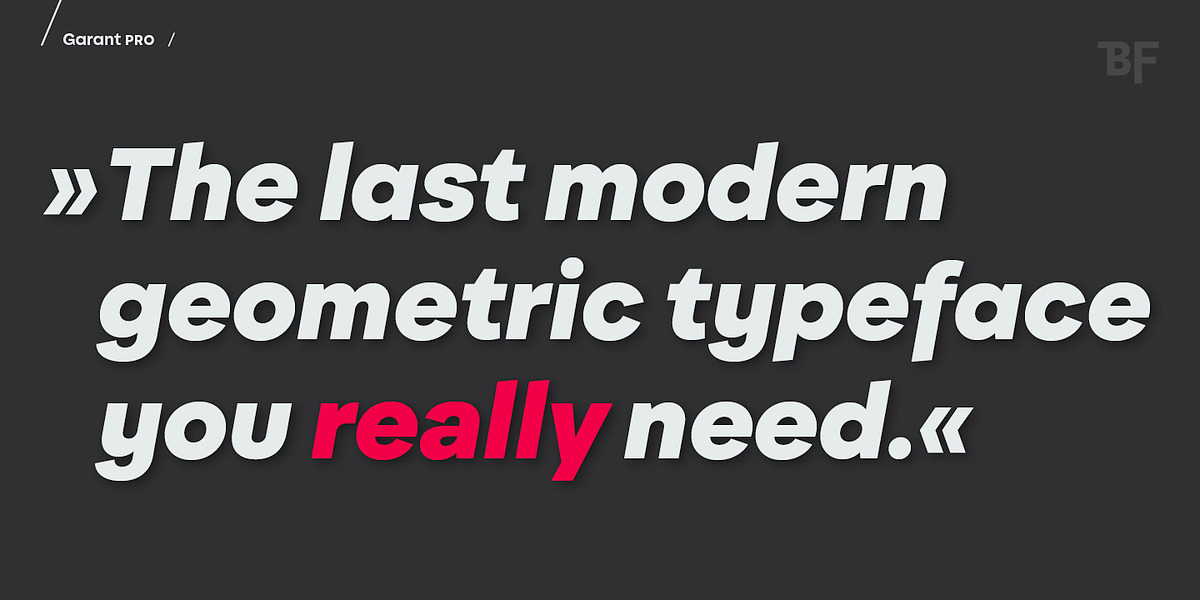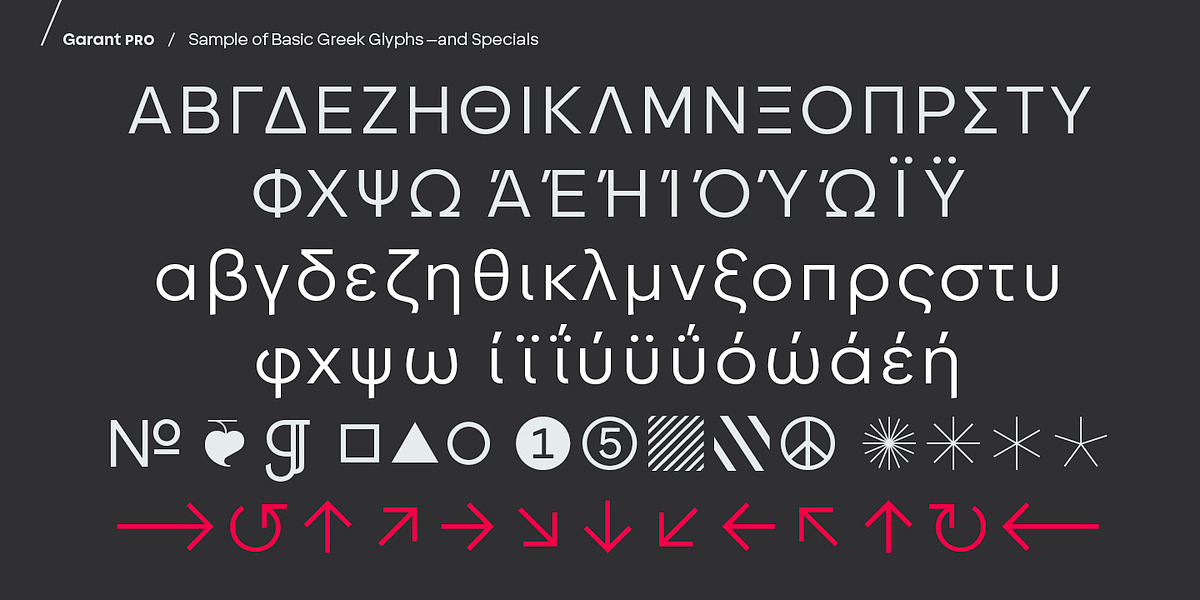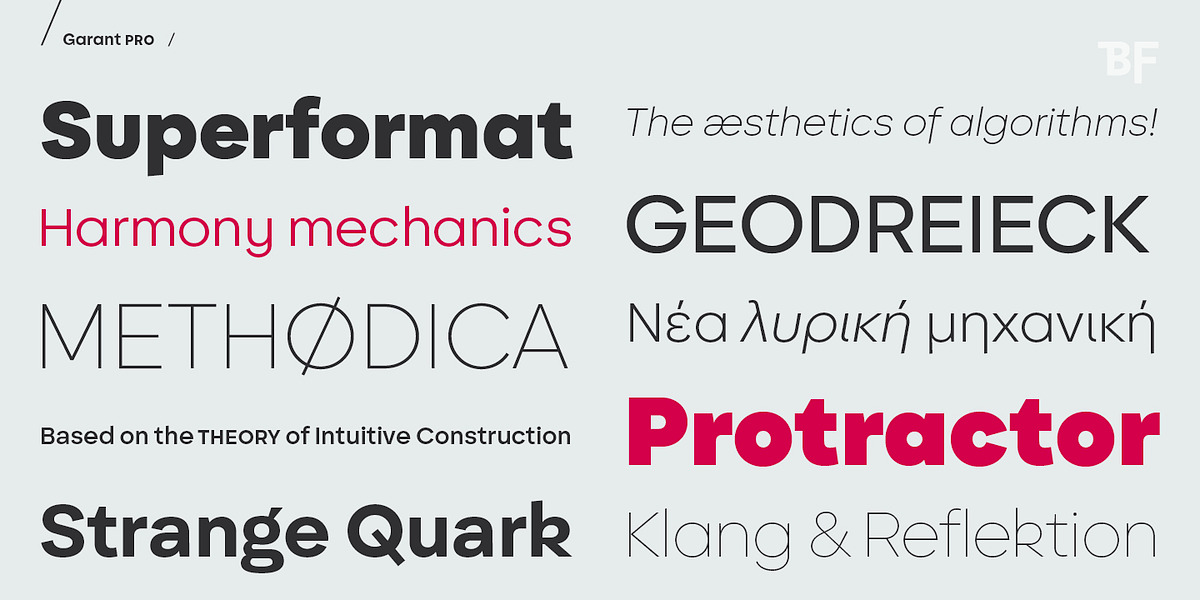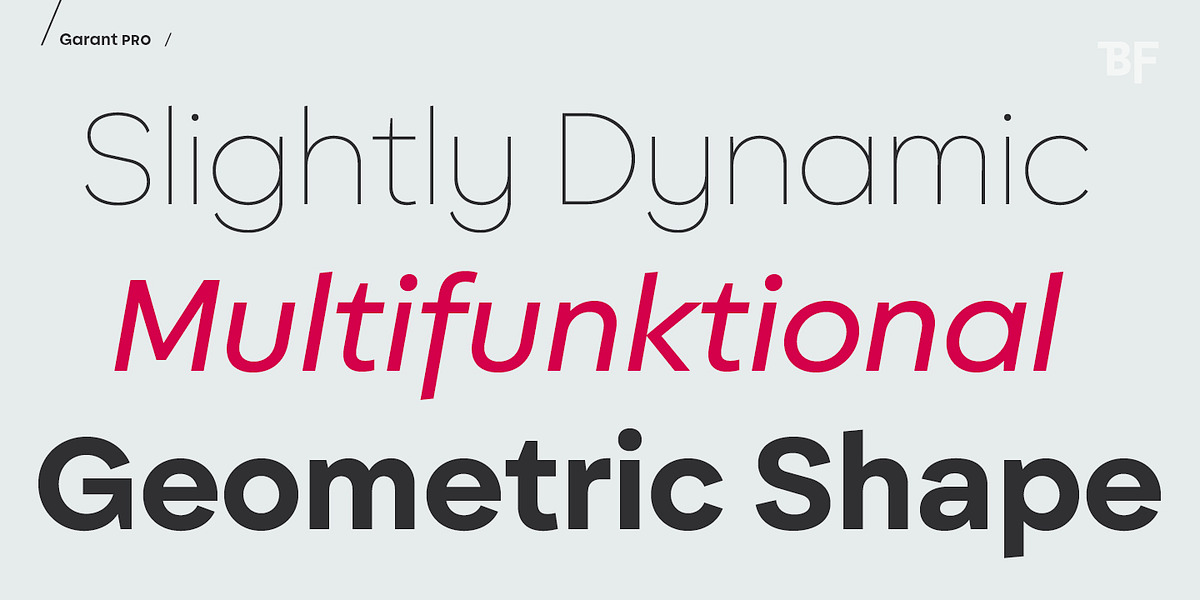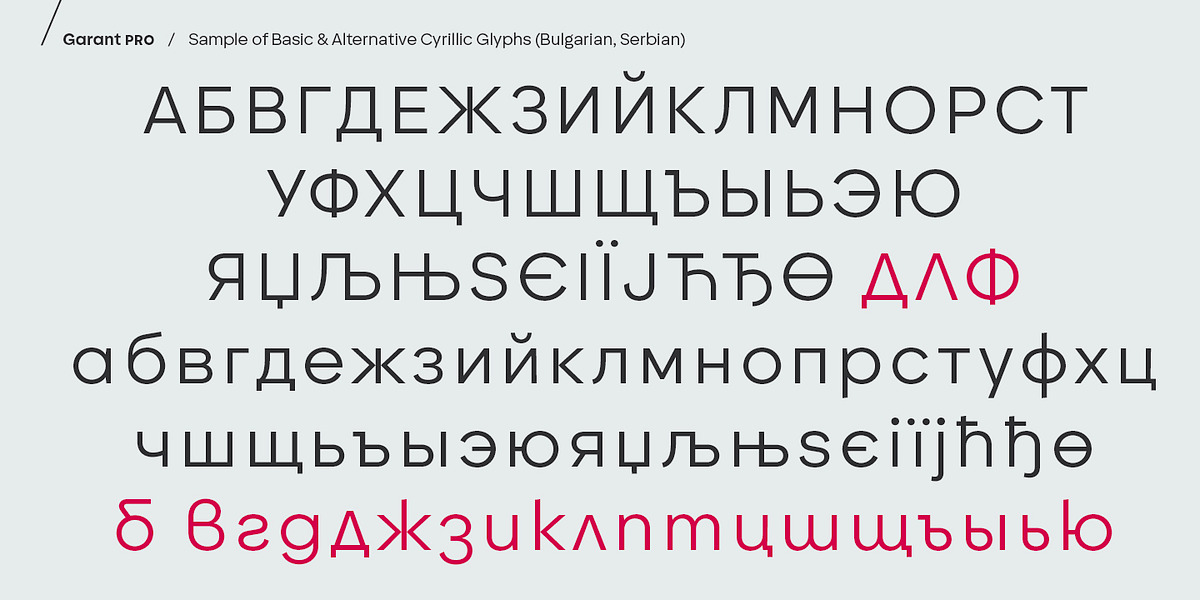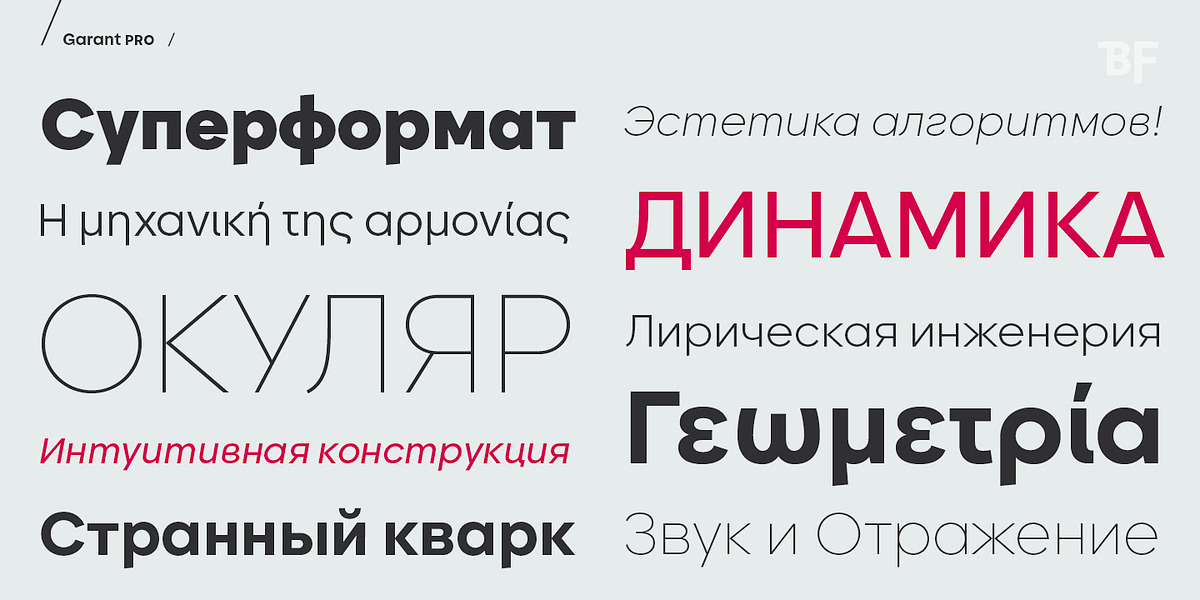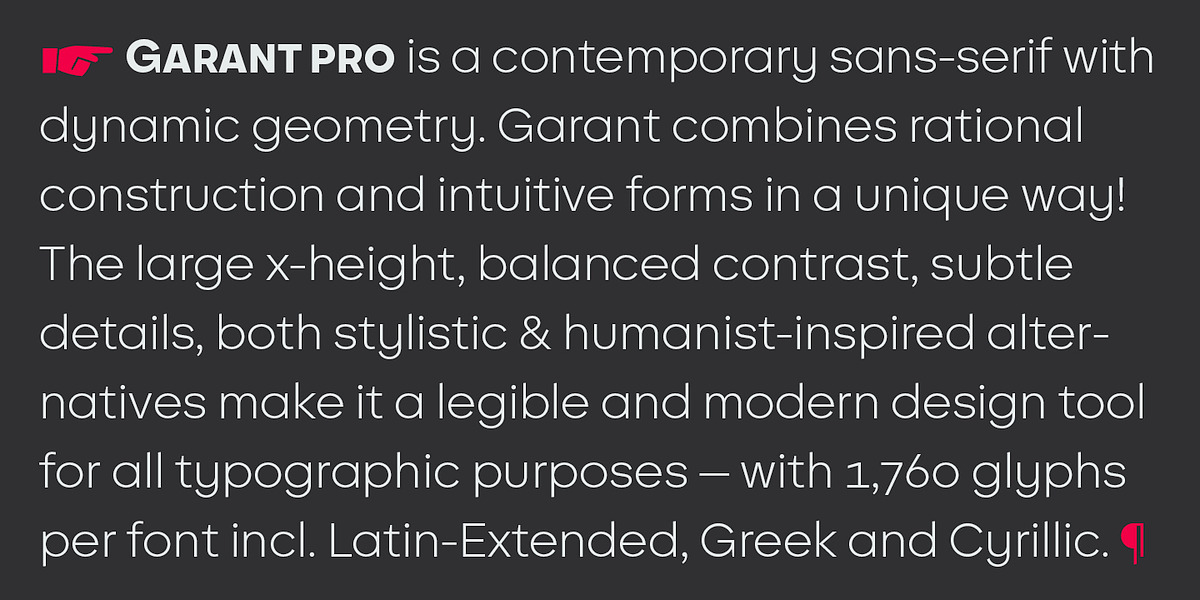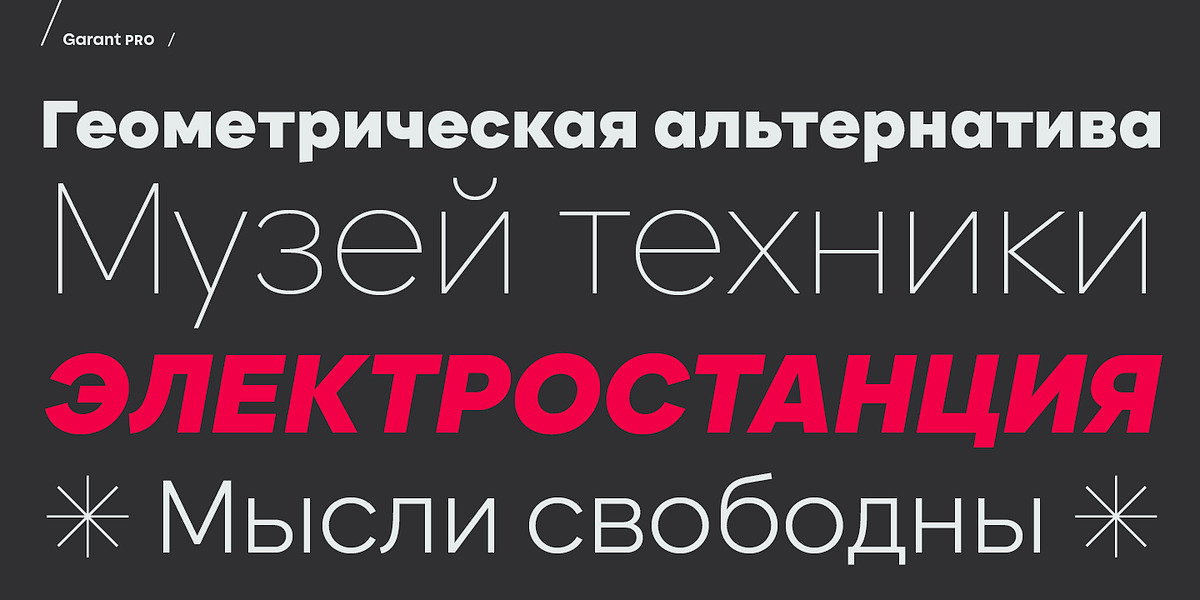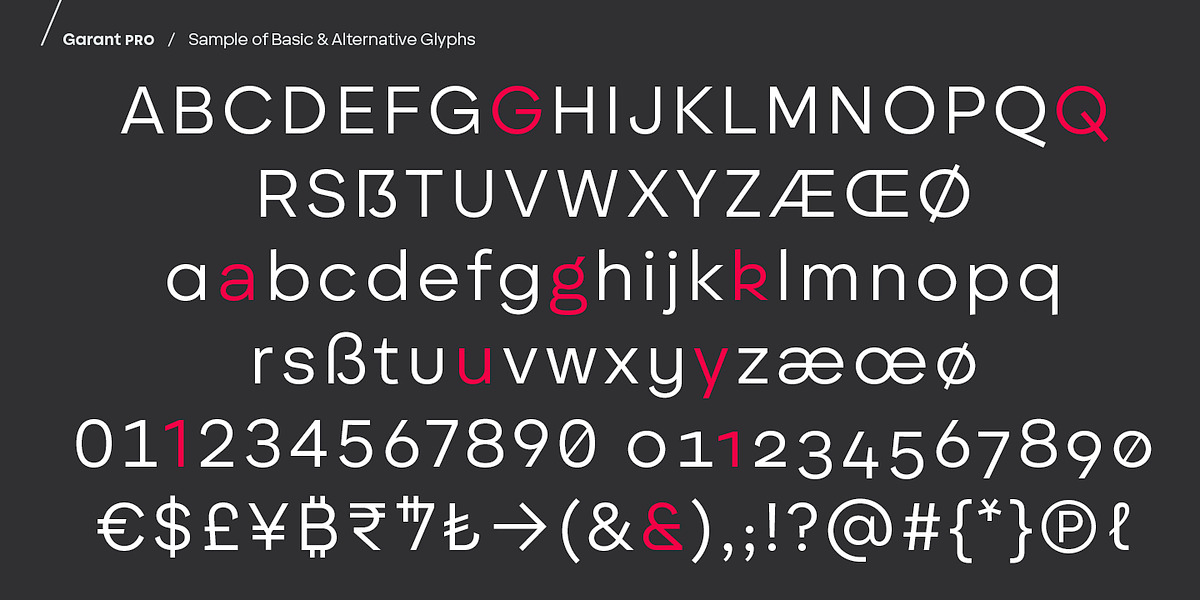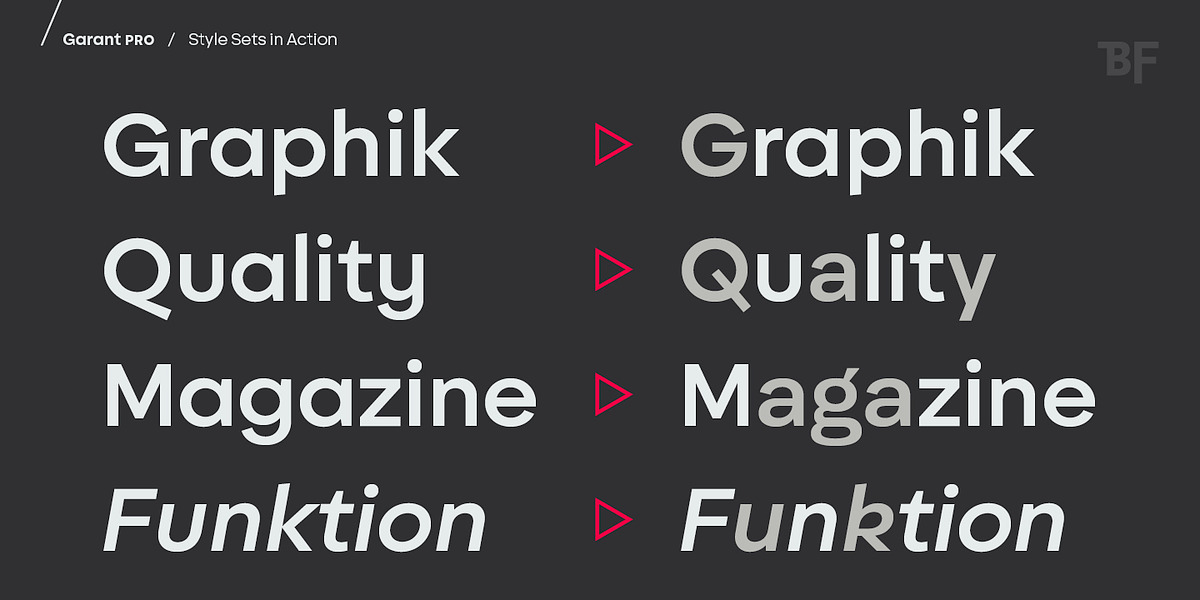
BF Garant Pro
BF Garant™ Pro is a modern geometric sans-serif typeface that combines strict architecture with dynamic details. Its open counters, tapered spurs and diagonal cut ascenders and descenders create a lively character. The font family comes in 10 weights from Thin to Black, each with matching italics. BF Garant Pro supports the extended Latin Unicode range (including Vietnamese), Cyrillic and Greek, making it suitable for international branding and packaging projects. It also includes ligatures, alternates, line figures, old style figures, small caps, numerals for small caps, fractions, symbols, currencies, different arrows and even the currency sign of Galactic Credits! The font features 23 useful OpenType features, allowing for versatility in various typographic applications.